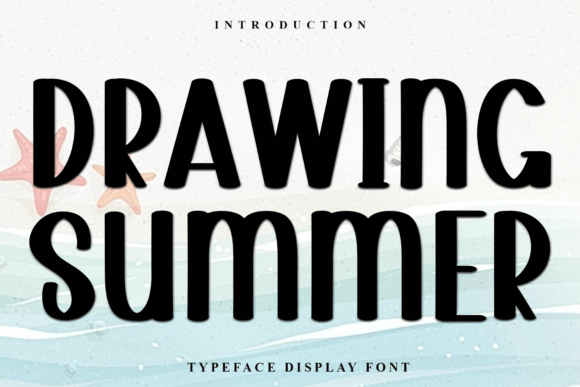
Drawing Summer Font: Elevate Your Designs with a Unique and Eye-Catching Typeface
When it comes to creating visually stunning designs, the right font can make all the difference. If you’re looking for a font that can add a touch of elegance and whimsy to your projects, look no further than the Drawing Summer Font. This beautiful and eye-catching font is designed with a soft, unique touch that sets it apart from other typefaces.
What Makes Drawing Summer Font So Special?
Drawing Summer Font is a distinctive and versatile typeface that is sure to make your designs stand out. Its unique strokes and soft texture give it a special character that makes it meaningful and perfect for a wide range of creative projects. Whether you’re working on a design project, craft, or other creative work, this font is sure to enhance your designs and make them appealing to a wide range of audiences.
Key Features of Drawing Summer Font
- Unique and Eye-Catching Design: Drawing Summer Font features a distinctive and eye-catching design that is sure to grab attention.
- Soft and Natural Texture: The font’s soft and natural texture gives it a warm and inviting feel.
- Variety of Characters: The font features a variety of characters, making it perfect for a wide range of creative projects.
Uses for Drawing Summer Font
Drawing Summer Font is perfect for a wide range of creative projects, including:
- Design Projects: Use Drawing Summer Font to add a touch of elegance and whimsy to your designs.
- Crafts: This font is perfect for craft projects, such as making cards, invitations, and other paper crafts.
- Creative Works: Drawing Summer Font is ideal for use in creative works, such as illustrations, paintings, and other artistic projects.
Benefits of Using Drawing Summer Font
There are many benefits to using Drawing Summer Font in your designs, including:
- Enhanced Visual Appeal: Drawing Summer Font is sure to enhance the visual appeal of your designs and make them more engaging.
- Increased Versatility: This font is versatile and can be used in a wide range of creative projects.
- Unique and Memorable: Drawing Summer Font is a unique and memorable typeface that is sure to make your designs stand out.
Why Choose Drawing Summer Font?
There are many reasons to choose Drawing Summer Font for your creative projects, including:
- High-Quality Design: Drawing Summer Font is a high-quality typeface that is designed with a soft, unique touch.
- Wide Range of Uses: This font is perfect for a wide range of creative projects, from design projects to crafts and other creative works.
In conclusion, Drawing Summer Font is a beautiful and eye-catching typeface that is sure to elevate your designs and make them more engaging. With its unique and distinctive strokes, soft texture, and versatility, this font is perfect for a wide range of creative projects. Whether you’re a designer, crafty person, or artist, Drawing Summer Font is a great choice for anyone looking to add a touch of elegance and whimsy to their work.
FAQs About Drawing Summer Font
- Q: What is Drawing Summer Font?
A: Drawing Summer Font is a beautiful and eye-catching typeface designed with a soft, unique touch.
- Q: What makes Drawing Summer Font so special?
A: Drawing Summer Font features a distinctive and eye-catching design, soft and natural texture, and is versatile and compatible with a wide range of applications.
- Q: What are some uses for Drawing Summer Font?
A: Drawing Summer Font is perfect for design projects, crafts, creative works, and other artistic projects.